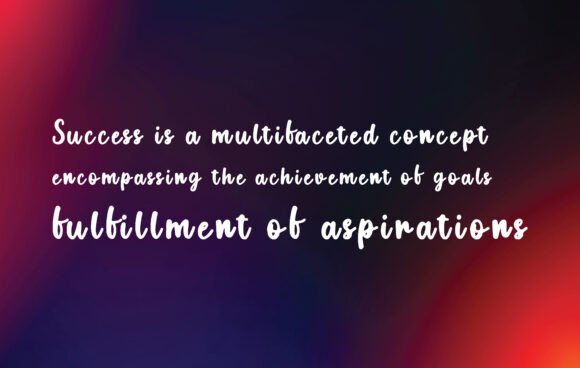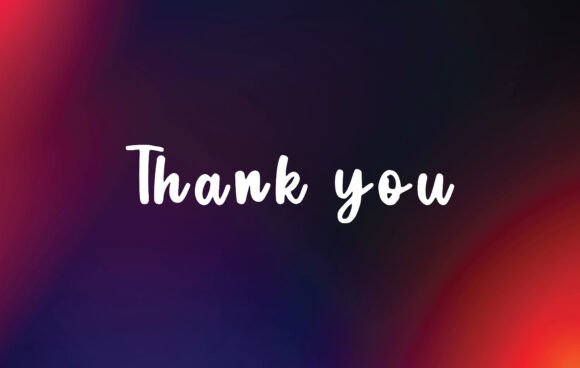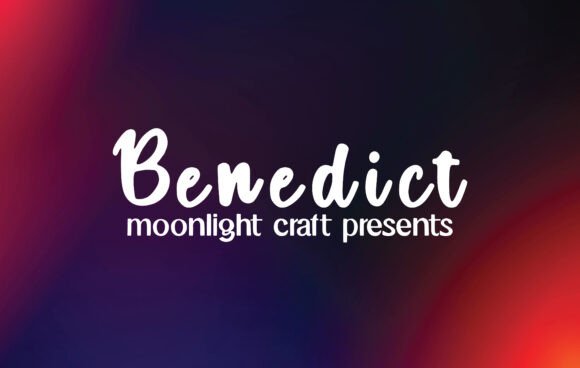
Benedict Font: Elevate Your Creative Projects with Elegance and Sophistication
In the world of typography, a font can make or break the visual appeal of a design project. For designers and crafters looking for a touch of elegance and sophistication, the Benedict font is an excellent choice. This lovely and beautiful handwritten font has the potential to take your creative ideas to the highest level, making it perfect for creating eye-catching logos, branding, and quotes.
The Beauty of Benedict Font
The Benedict font boasts a unique and stylish handwritten aesthetic that exudes warmth and personality. Its elegant strokes and carefully crafted lettering make it a versatile font suitable for a wide range of design projects. Whether you’re working on a logo, brochure, or social media graphics, Benedict font is sure to add a touch of sophistication and refinement.
Key Features of Benedict Font
- Handwritten elegance: Benedict font features beautiful, flowing script that mimics the look of handwritten text.
- Versatility: This font is suitable for a wide range of design projects, from logos and branding to quotes and social media graphics.
- Easy to read: Despite its elegant and cursive nature, Benedict font remains highly legible, making it perfect for body text and headlines.
- Unique character set: The font includes a range of characters, numbers, and punctuation marks, ensuring you have everything you need to create stunning designs.
Why Choose Benedict Font?
With so many fonts available, why choose Benedict font for your design projects? Here are just a few compelling reasons:
- Stand out from the crowd: Benedict font’s unique and elegant design ensures your projects will stand out from the competition.
- Enhance your brand: The font’s sophisticated and refined aesthetic makes it perfect for branding and logo design, helping to elevate your brand’s image.
- Time-saving: With Benedict font, you can create stunning designs in no time, saving you time and effort.
Using Benedict Font in Your Design Projects
So, how can you use Benedict font in your design projects? Here are a few ideas to get you started:
- Logos and branding: Use Benedict font to create eye-catching logos and branding materials that exude elegance and sophistication.
- Social media graphics: Add a touch of refinement to your social media graphics, including Facebook posts, Instagram stories, and Twitter headers.
- Quotes and posters: Create stunning quotes and posters that showcase Benedict font’s beautiful handwritten aesthetic.
- Brochures and flyers: Use Benedict font to add a touch of elegance to your brochures, flyers, and other marketing materials.
In conclusion, the Benedict font is a beautiful and elegant handwritten font that can elevate your design projects to new heights. With its unique and sophisticated aesthetic, versatility, and ease of use, it’s the perfect choice for designers and crafters looking to add a touch of refinement to their work. Whether you’re working on logos, branding, quotes, or social media graphics, Benedict font is sure to impress.